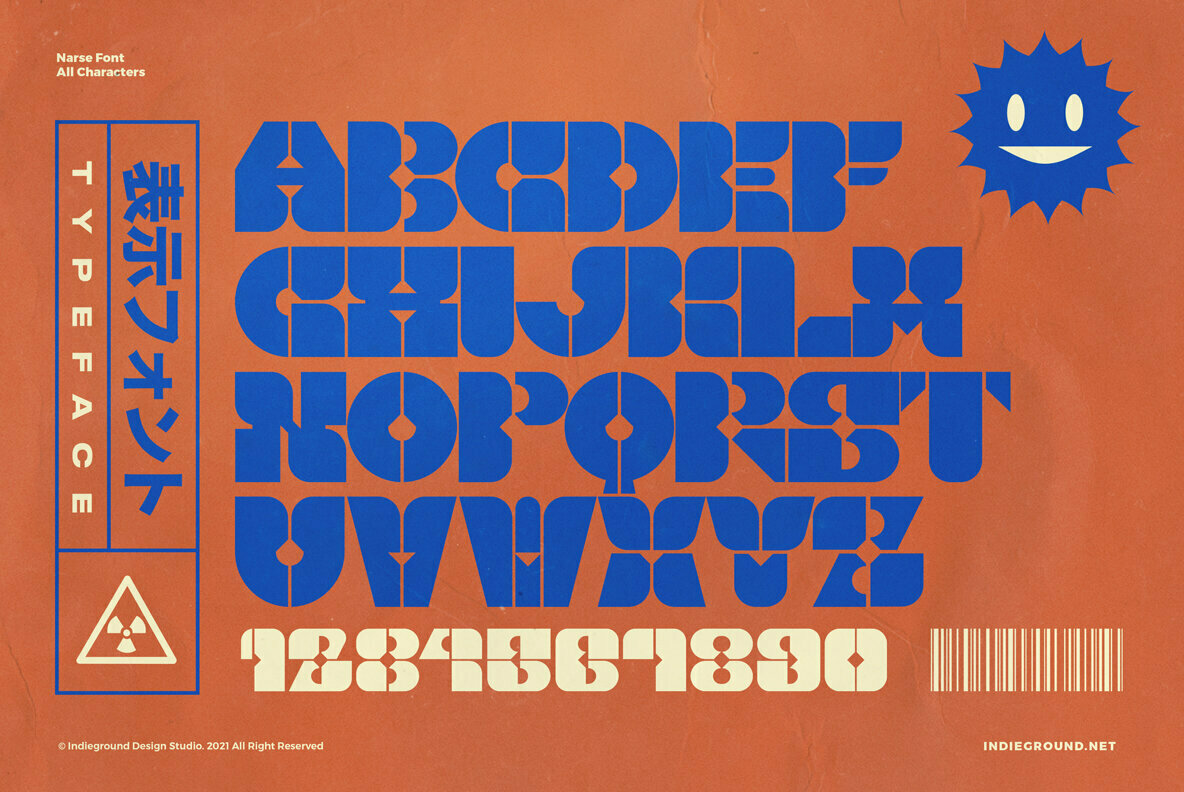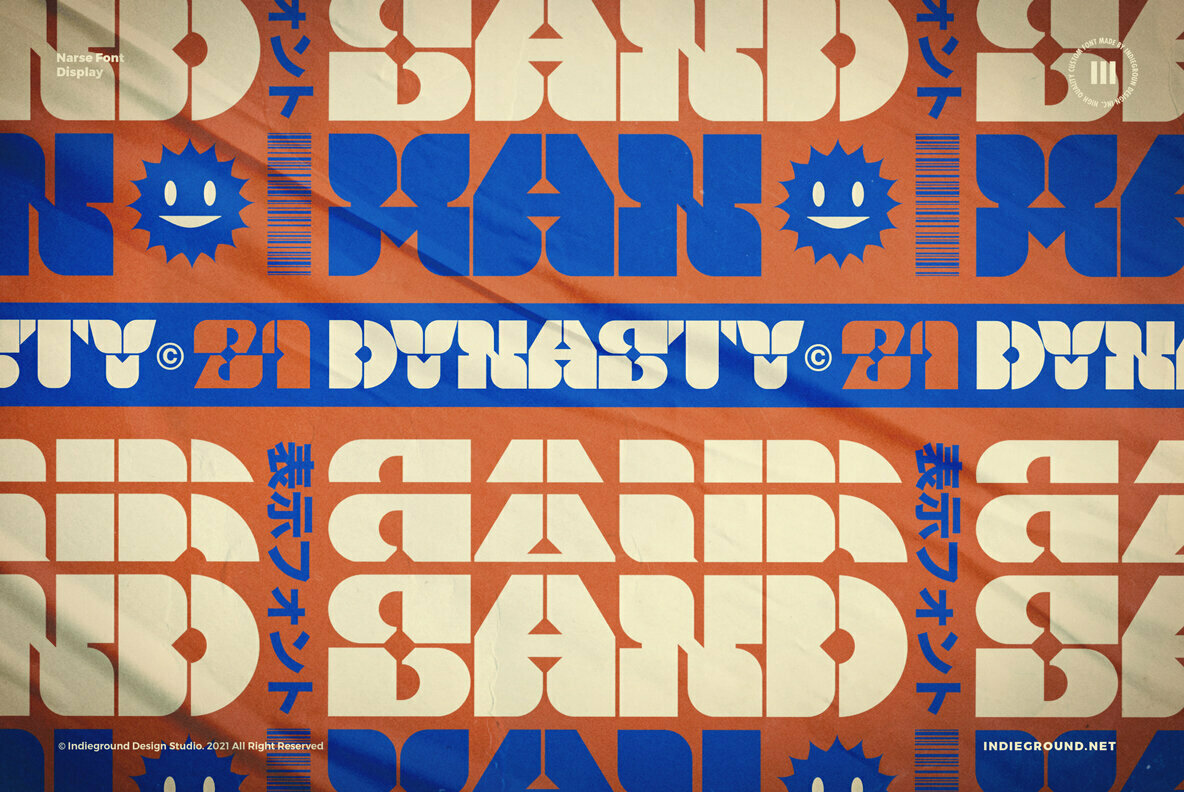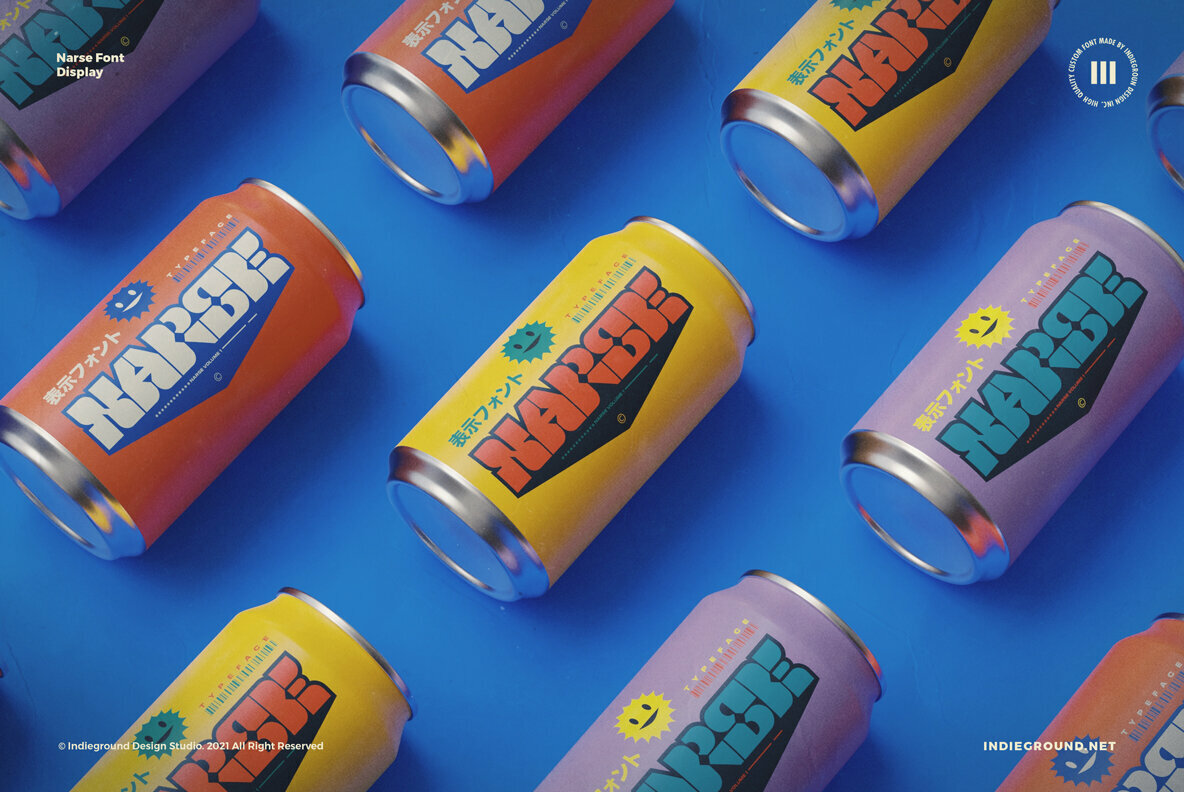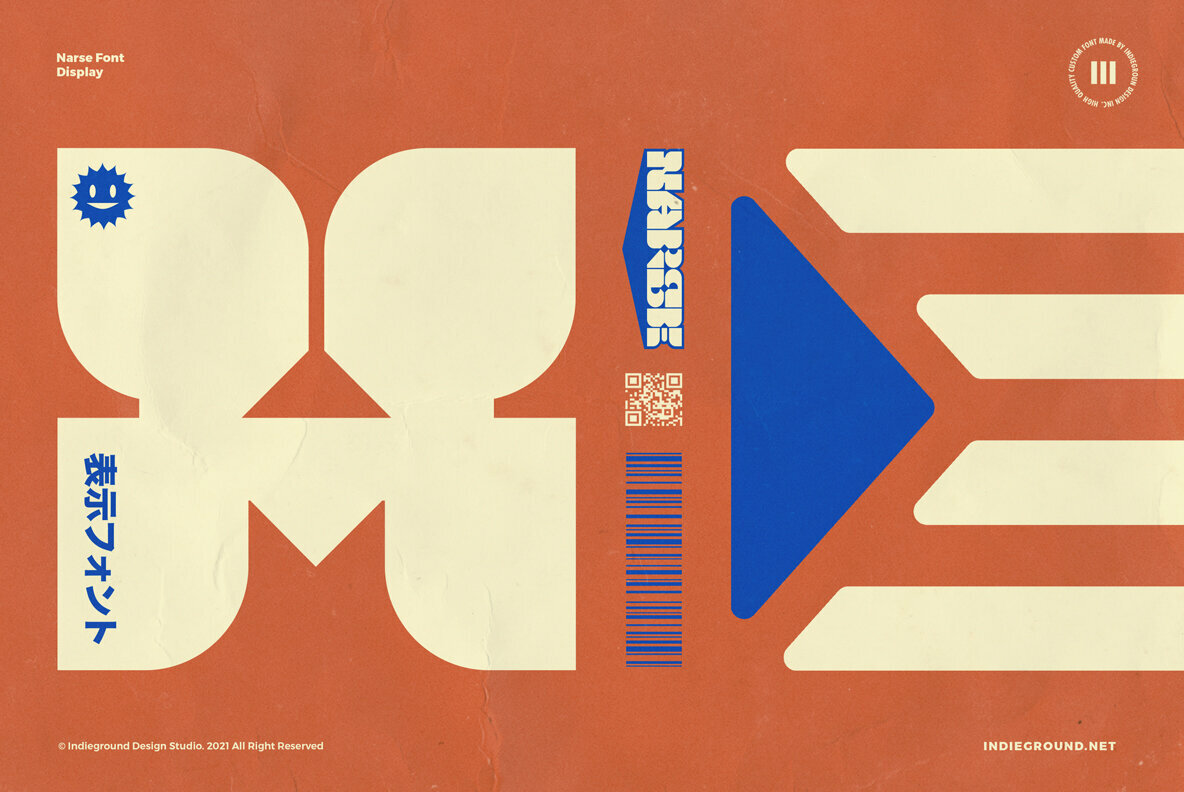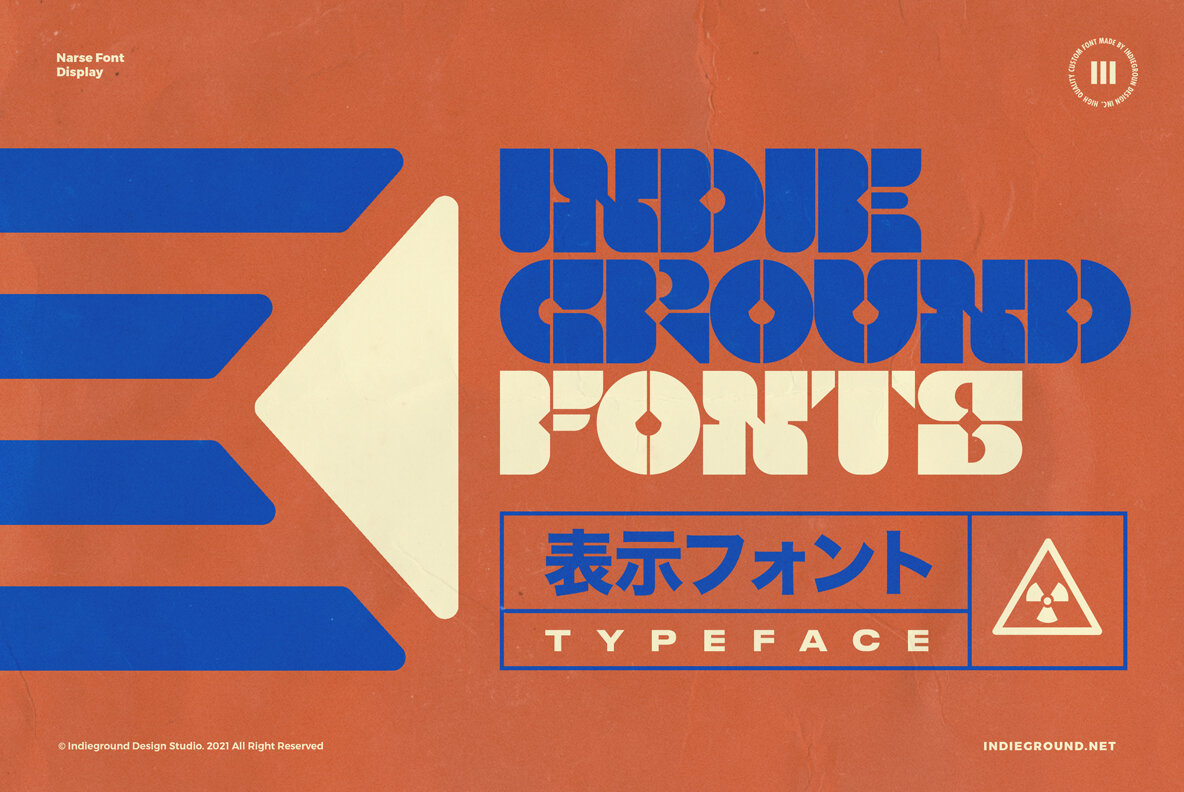
Narse Font
Narse
Indieground Design's Narse font merges the nostalgic allure of 70s jazz cover art with a modern design ethos. Crafted on a square module, it imparts a classic yet contemporary boldness to any project. This characterful display font is perfect for those seeking to add depth and personality to their typography.Narse: Bold Display Font With a Classic Feel